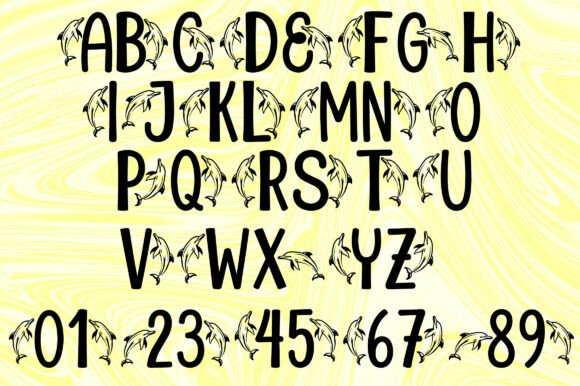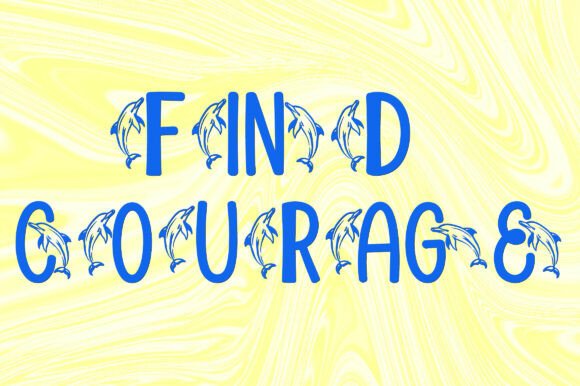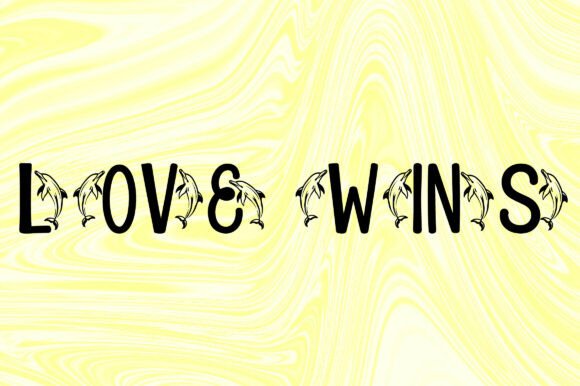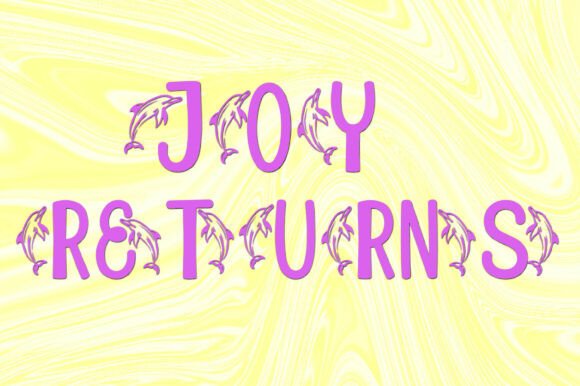
Amyamy Font: A Playful and Creative Typeface Inspired by Dolphins and Ocean Life
Are you looking for a font that can add a fresh, cheerful, and unique touch to your designs? Look no further than the Amyamy Font, a decorative dolphin fish font that is sure to make a splash in any project. Inspired by the playful beauty of dolphins and ocean life, this fun and imaginative typeface is perfect for designers and crafters who want to bring a lively ocean-inspired charm to their work.
What is Amyamy Font?
Amyamy Font is a decorative font featuring uppercase English letters A-Z and numbers 0-9. Its creative and playful style is reminiscent of the carefree nature of dolphins and the ocean. With its unique and imaginative design, this font is sure to add personality, creativity, and endless possibilities to your designs.
The Amyamy Font is versatile and can be used in a wide range of projects, including:
- Logos and branding: Create a memorable and eye-catching logo that stands out with the Amyamy Font.
- Posters and flyers: Add a playful touch to your posters and flyers with this fun and creative font.
- Invitations and greeting cards: Make your invitations and greeting cards more special with the Amyamy Font.
- Packaging: Add a unique and creative touch to your product packaging with this decorative font.
- Social media graphics: Create engaging and eye-catching social media graphics with the Amyamy Font.
- Kids’ designs: This font is perfect for kids’ designs, such as children’s books, educational materials, and more.
Key Features of Amyamy Font
The Amyamy Font has several key features that make it a great choice for designers and crafters:
- Unique and creative design: The Amyamy Font has a one-of-a-kind design that is sure to make your designs stand out.
- Playful and cheerful style: This font has a playful and cheerful style that is perfect for designs that need a fun and lighthearted touch.
- Uppercase English letters A-Z and numbers 0-9: The Amyamy Font features uppercase English letters A-Z and numbers 0-9, making it easy to use for a variety of projects.
Why Choose Amyamy Font?
There are many reasons why you should choose the Amyamy Font for your next project:
- Add a unique touch: The Amyamy Font adds a unique and creative touch to any design, making it perfect for designers and crafters who want to stand out.
- Perfect for kids’ designs: This font is perfect for kids’ designs, such as children’s books, educational materials, and more.
- Versatile: This font can be used in a wide range of projects, from logos and branding to social media graphics and kids’ designs.